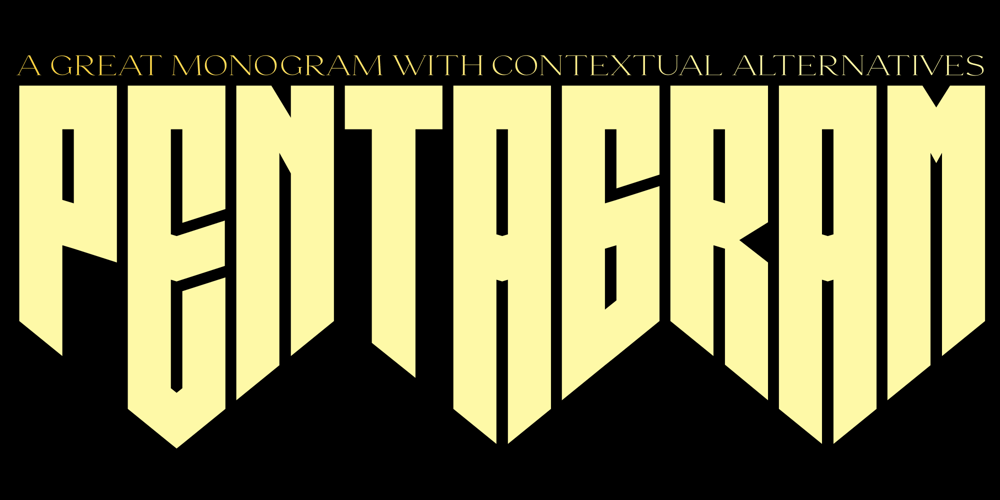
Pentagram Font Family was designed by Sadat Fauzi, Intuisi Creative and published by Fauzistudio. Pentagram contains 1 styles and family package options. Pentagram is a typeable three-letter Pentagon monogram font. You can type Monogram a pentagram with a mapped border on the numbers 0-9.With the support of alternative contextual features It works automatically so all you can do is just type.If you liked this feel free to show your appreciation by giving this project a simple like, I will be making a font with a similar feature in the future.Hope you enjoy.Intuisi Creative